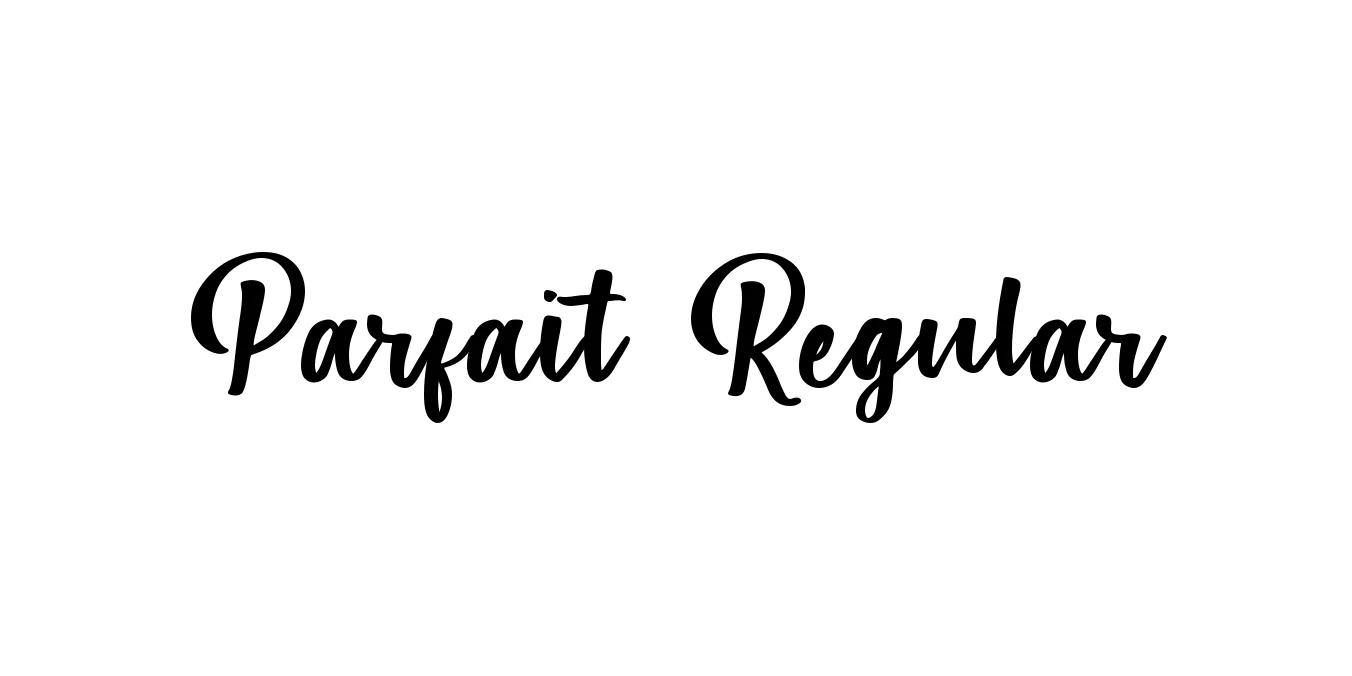
Parfait Regular
Designed by Font Diner
| Font Name | Parfait |
| Category | Retro Display Script |
| Designer | Font Diner |
Parfait Regular is a whimsical and nostalgic display typeface that pays homage to the vibrant visual culture of 1950s American diners and soda fountains. Its bouncy, rhythmic letterforms capture a sense of optimism and mid-century flair, making it an excellent choice for projects that require a touch of vintage charm and personality.
Designed with a specific focus on retro branding, the font features smooth curves and a playful weight distribution that ensures high visibility in headline settings. Whether used for digital media or printed ephemera, Parfait Regular serves as a bridge between classic commercial art and contemporary design needs, providing a stylized aesthetic that is both fun and professional.
Parfait Regular Best Uses
Perfect for creating memorable identities for cafes, bakeries, and retro-themed brands.
Excellent for artisanal food and beverage labels needing a nostalgic touch.
Adds a unique, eye-catching personality to Instagram and Pinterest posts.
Ideal for themed parties, weddings, or mid-century style gatherings.